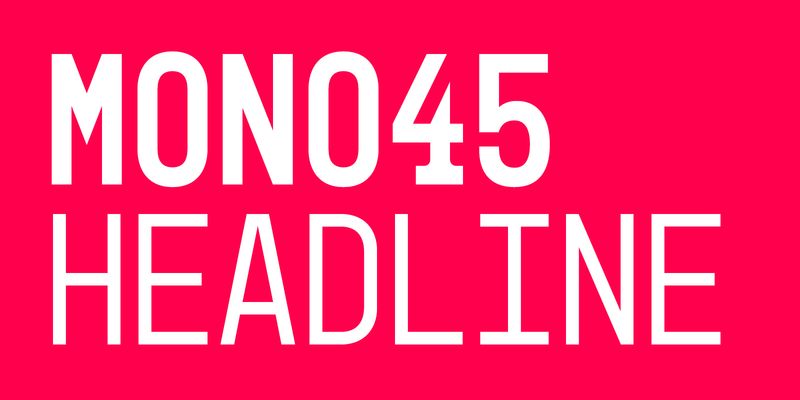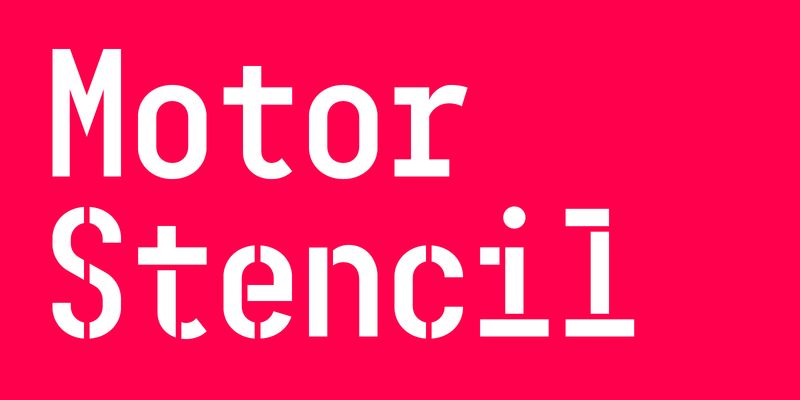
EuropaType
Europa
Europa is a modern sans serif combining geometric reduction and humanistic vitality. Despite the distinct geometrical touch and characterful roughness, it can be used for both text and headline purposes, due to optical modulation rather than metrical construction. Its name refers to the inspirational origins, two popular European typefaces: the geometrical Futura and the humanistic Gill Sans.
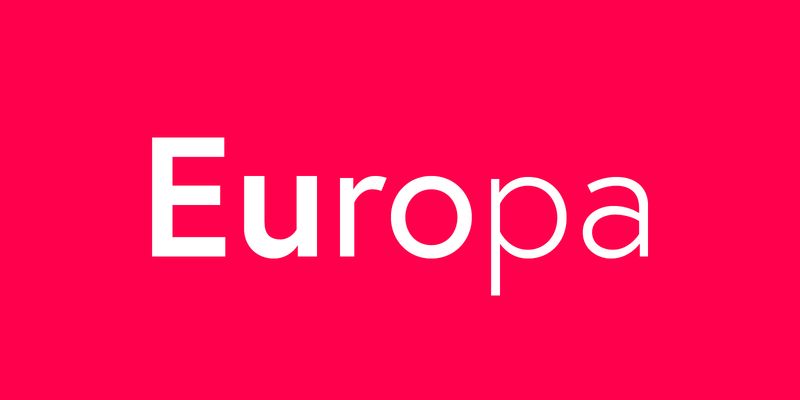
Mono45 Headline
Mono45 Headline is an uppercase font which has got its origins in stamped tickets numbers issued by the University Hospital in Zurich for queuing up to get inoculated. It is thought to be a headline typeface and reminds with its strong character and rustic charm of old condensed poster typefaces and such used in factories or for industrial purposes.
Motor
Motor Normal and Motor Stencil are monospaced fonts with technical charm. In its monotone and reliable rhythm it tends towards condensed proportions reminding of old poster fonts. Its origins lie in the typeface Mono45 Headline and the manually stamped tickets found at the University-hospital in Zurich.